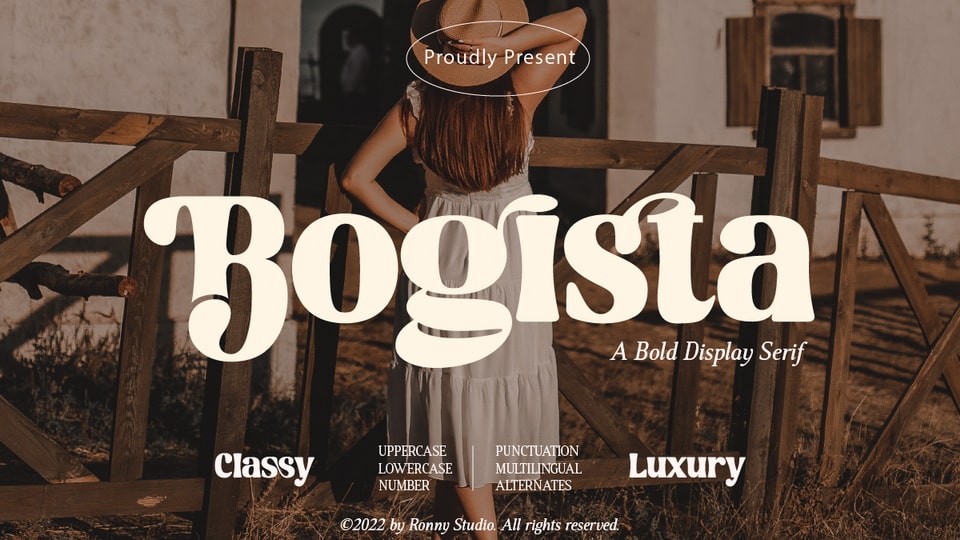
Download Bogista font, an elegant bold serif display typeface. Bogista impresses and features an elegant, professionally shaped characters that will easily match a variety of creations that call for a different twist.